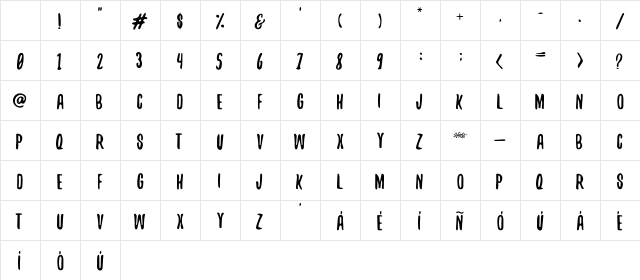
Complete Yeah Papa glyph index. Displaying only characters natively supported by Yeah Papa font.
Yeah Papa is a composed and adaptable typeface that performs quietly and consistently across a wide range of design contexts.